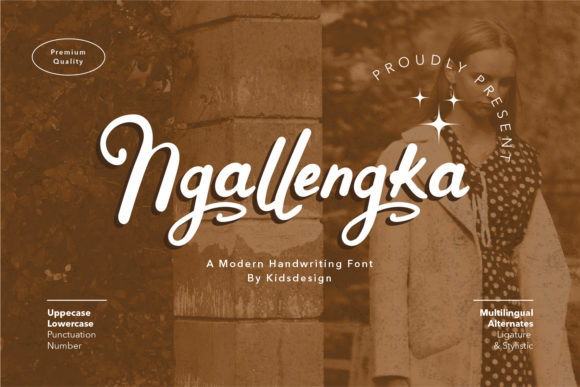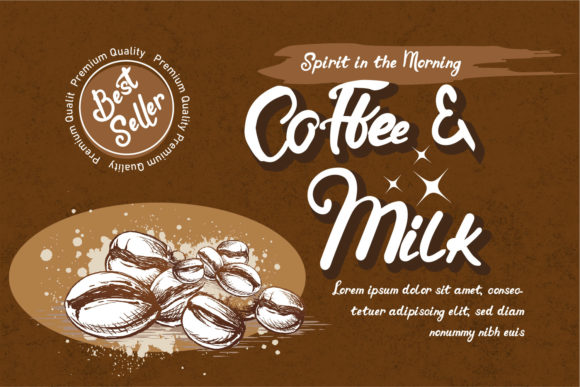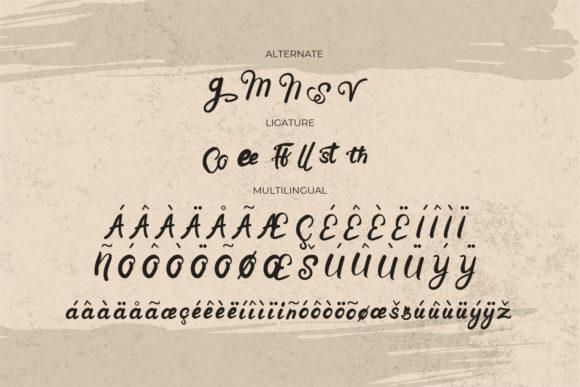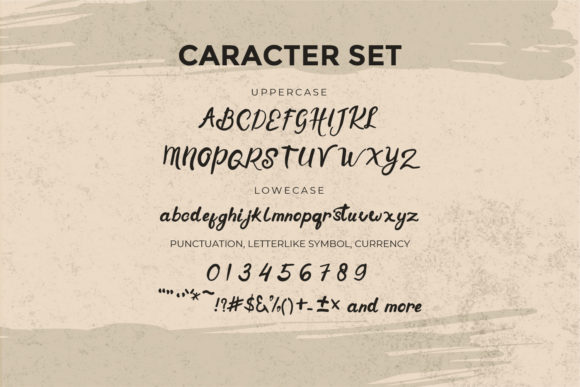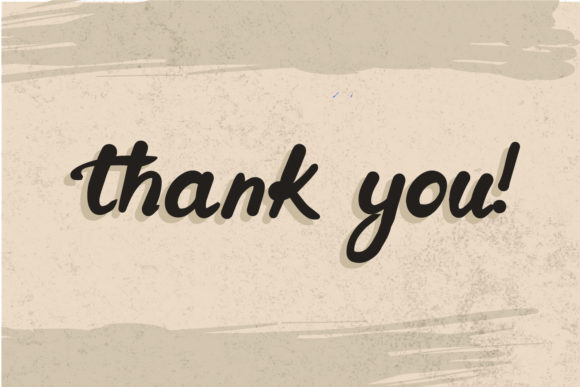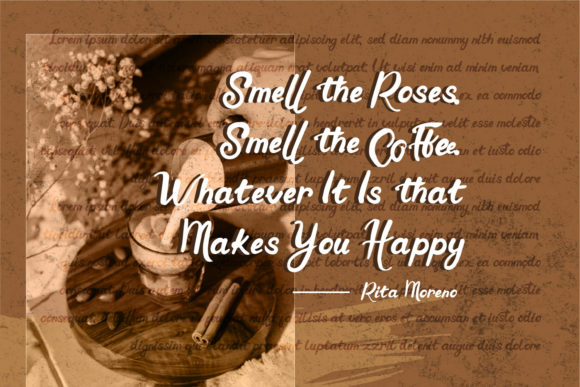
Ngallengka Script Font
About Ngallengka Script Font
Ngallengka Script is a beautiful and vintage styled script font. It will be suitable for any projects such as logos, branding projects, homeware designs, product packaging, mugs, quotes, posters, shopping bags, t-shirts, book covers, and all your other lovely projects that need beautiful handwriting taste.